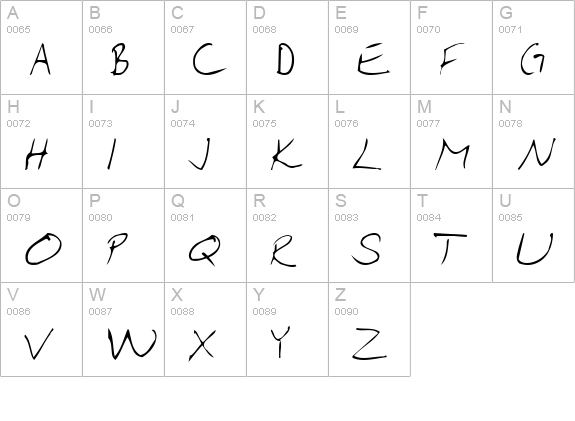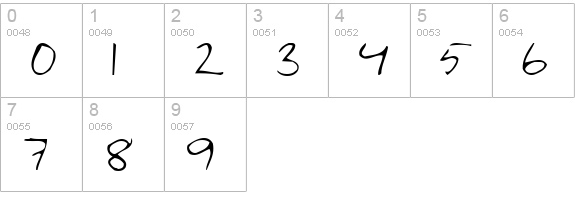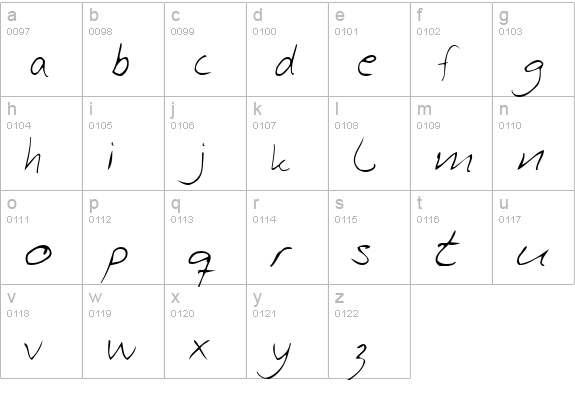
Asa Rocks Font Details
Introducing Asa Rocks font, a dynamic and eye-catching typeface that will make your designs stand out! This unique font features bold and modern letterforms that exude creativity and energy. With its distinctive style and versatile character set, Asa Rocks is perfect for a wide range of design projects, from posters to branding to social media graphics. The best part? Asa Rocks font is completely free to download at FontsMarket.com! Whether you're a seasoned designer looking to add a fresh touch to your work or a beginner searching for a stylish font to make your projects pop, Asa Rocks is the perfect choice. Don't miss out on this fantastic opportunity to enhance your designs with this fabulous font. Download Asa Rocks today and let your creativity shine!